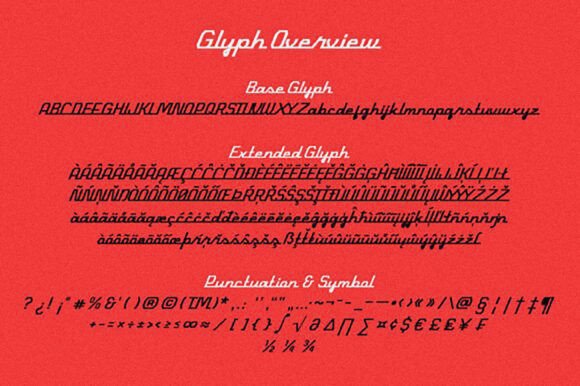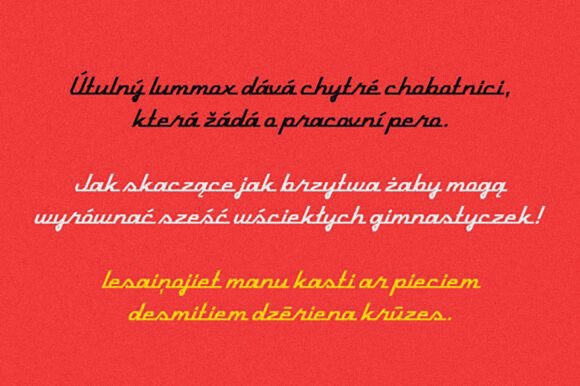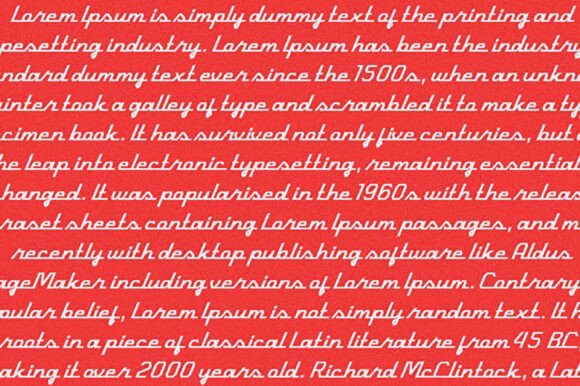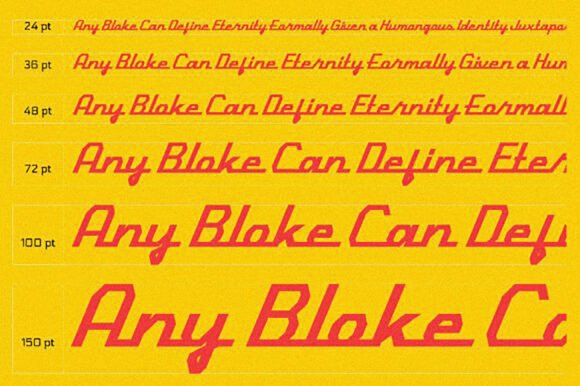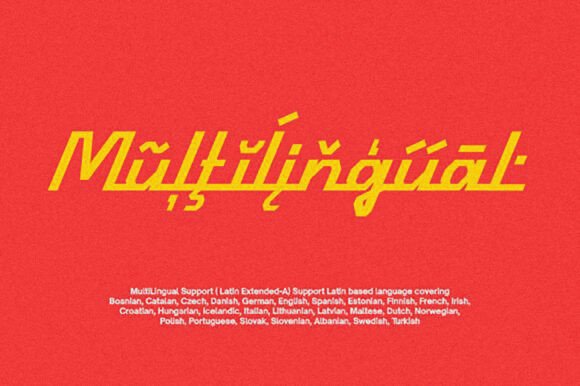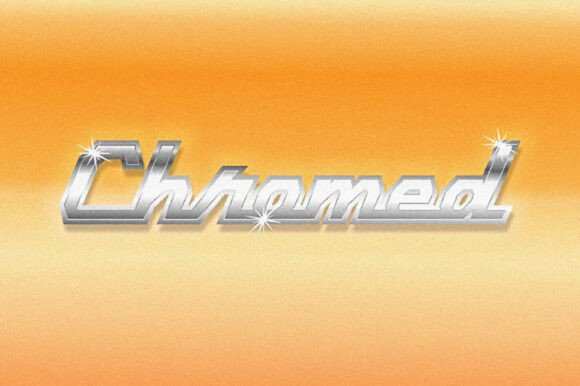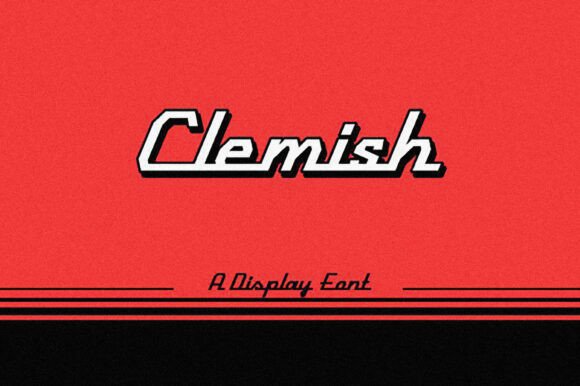
Clemish Font: Elevate Your Designs with a Touch of Timeless Elegance
In the realm of typography, few fonts manage to strike a balance between classic sophistication and modern flair. Clemish Font, however, achieves this delicate equilibrium with ease. This stylish script font seamlessly blends the elegance of a bygone era with a retro-futuristic vibe, making it an indispensable asset for designers and crafters seeking to infuse their projects with a unique charm.
The Essence of Clemish Font
Clemish Font is characterized by its flowing letters and distinctive shapes, which evoke a sense of nostalgia reminiscent of vintage typography. Yet, despite its classic roots, Clemish exudes a modern sensibility that ensures it remains relevant in today’s design landscape. This fusion of old and new is what sets Clemish apart, making it an excellent choice for a wide range of design applications.
Design Applications of Clemish Font
One of the key advantages of Clemish Font is its versatility. Its stylish and legible design makes it suitable for various projects, including:
• Posters: Create eye-catching posters for events, advertisements, or informational campaigns that demand attention and convey a sense of sophistication.
• Invitations: Add a touch of elegance to your invitations for weddings, parties, or formal gatherings, making each recipient feel special and valued.
• Branding and Packaging: Elevate your brand’s visual identity with Clemish Font, perfect for logos, product labels, or packaging that requires a distinctive and memorable look.
• Digital Content: Enhance your digital platforms, such as websites, social media graphics, or email newsletters, with a font that stands out and engages your audience.
Why Choose Clemish Font?
With an abundance of fonts available to designers today, what makes Clemish Font a preferred choice? Here are a few compelling reasons:
• Unique Aesthetic: Clemish offers a distinctive style that is both nostalgic and contemporary, allowing designers to create works that are instantly recognizable.
• Emotional Connection: The font’s elegant and somewhat whimsical nature can evoke emotions and create a connection with the audience, which is invaluable in design.
• Versatility: Clemish Font can be used across various mediums and projects, from print to digital, making it a versatile addition to any designer’s toolkit.
• Legibility: Despite its stylized appearance, Clemish maintains a high level of legibility, ensuring that messages are conveyed clearly and effectively.
Tips for Using Clemish Font Effectively
To maximize the impact of Clemish Font in your designs, consider the following tips:
• Pair with Complementary Fonts: Combine Clemish with simpler, sans-serif fonts for contrast and visual hierarchy.
• Adjust Letter Spacing: For optimal readability, especially in longer texts, adjust the letter spacing to ensure a comfortable flow.
• Utilize Size and Weight: Play with different sizes and weights of Clemish to create emphasis and guide the viewer’s eye through your design.
• Experiment with Colors: While Clemish looks stunning in classic black and white, don’t be afraid to experiment with colors that match your brand or project’s theme.
Clemish Font is more than just a typeface; it’s a design statement that combines the best of both worlds—timeless elegance and modern flair. Whether you’re a professional designer or a crafty DIY enthusiast, Clemish offers a unique opportunity to elevate your projects and leave a lasting impression on your audience. With its flowing letters, unique shapes, and versatile application, Clemish Font is poised to become your go-to choice for designs that demand a touch of charm and personality.